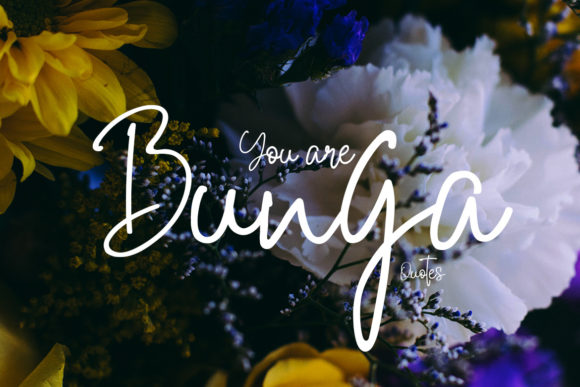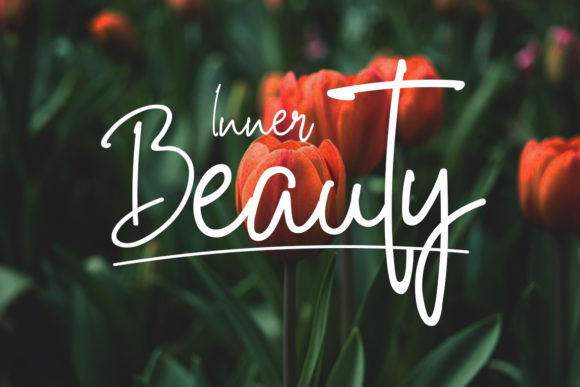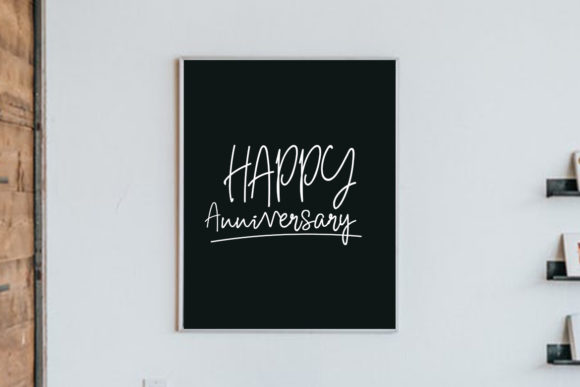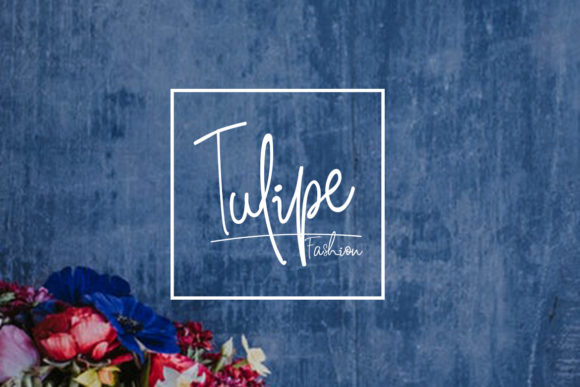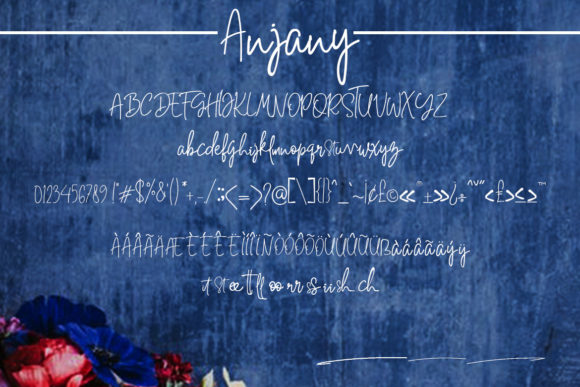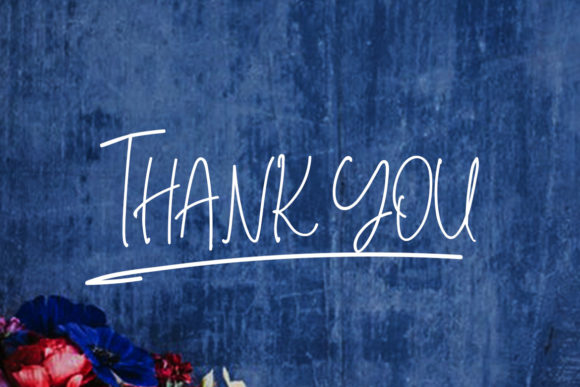
Anjany Font
About Anjany Font
The Anjany is a modern, artistic, fresh font. It has an unique shape which will make your designs stand out.
It can be used for logos, posters, weddings, business cards, branding, and much more!